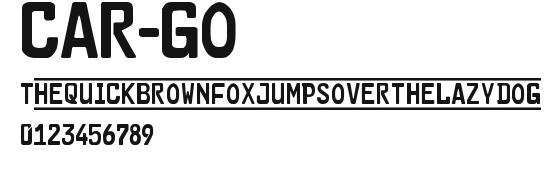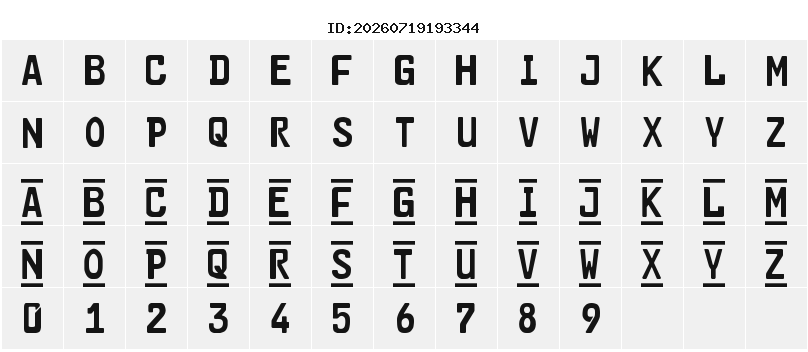
CAR-GO Preview
• Font Name: CAR-GO
About CAR-GO.ttf
CAR-GO.ttf is a modern, elegant sans-serif font designed for ultimate readability and visual harmony. Perfect for branding, headlines, web design, and print materials.